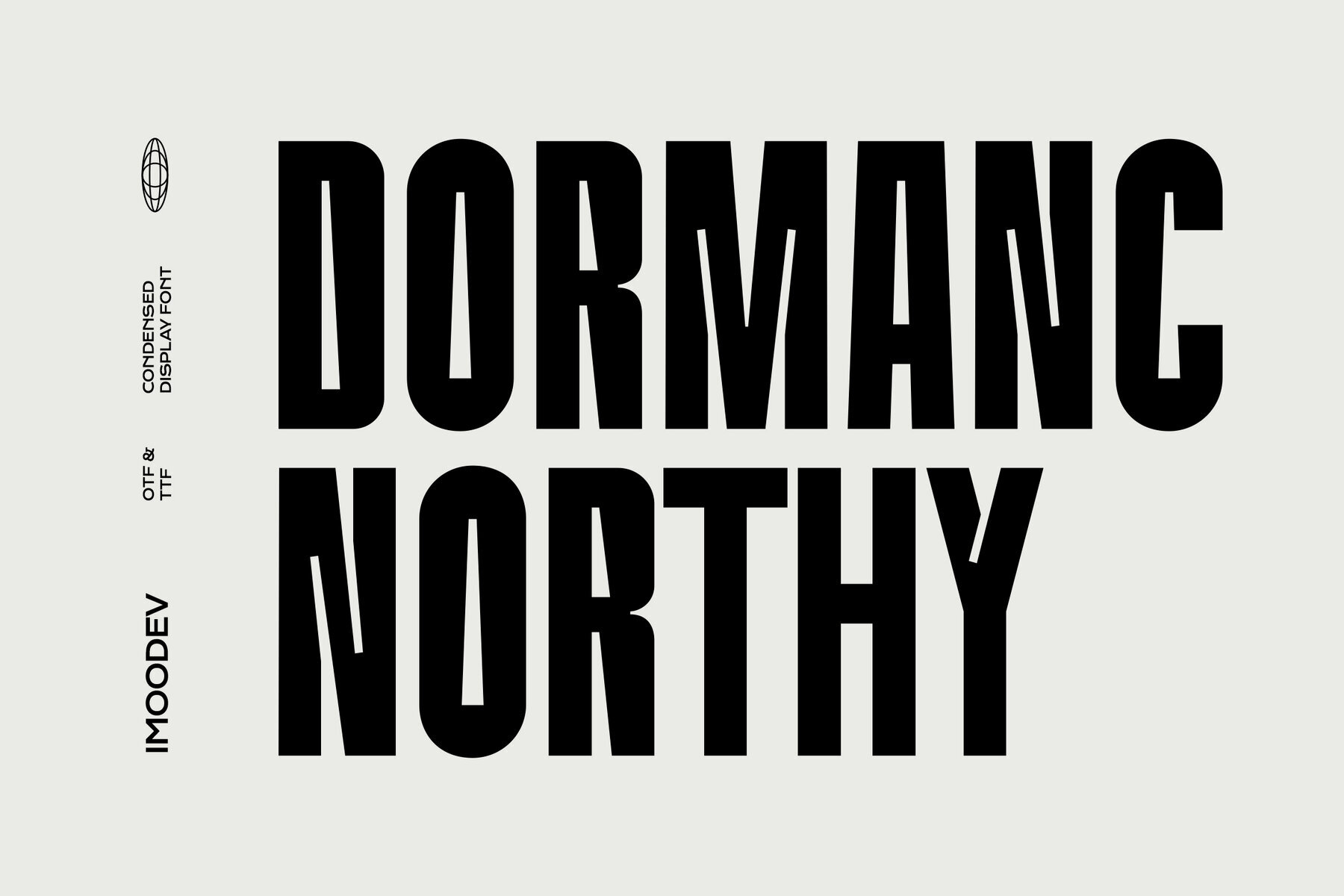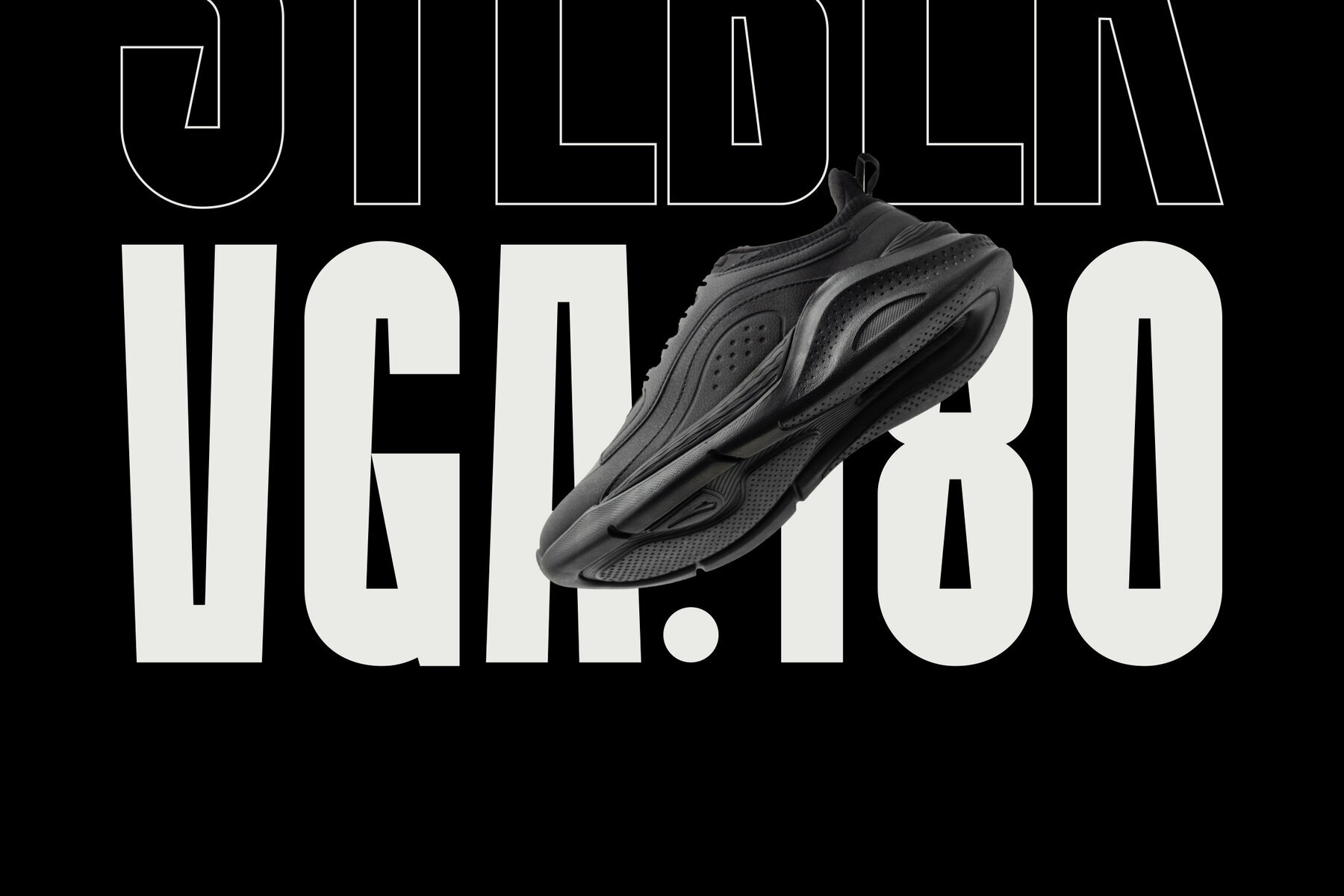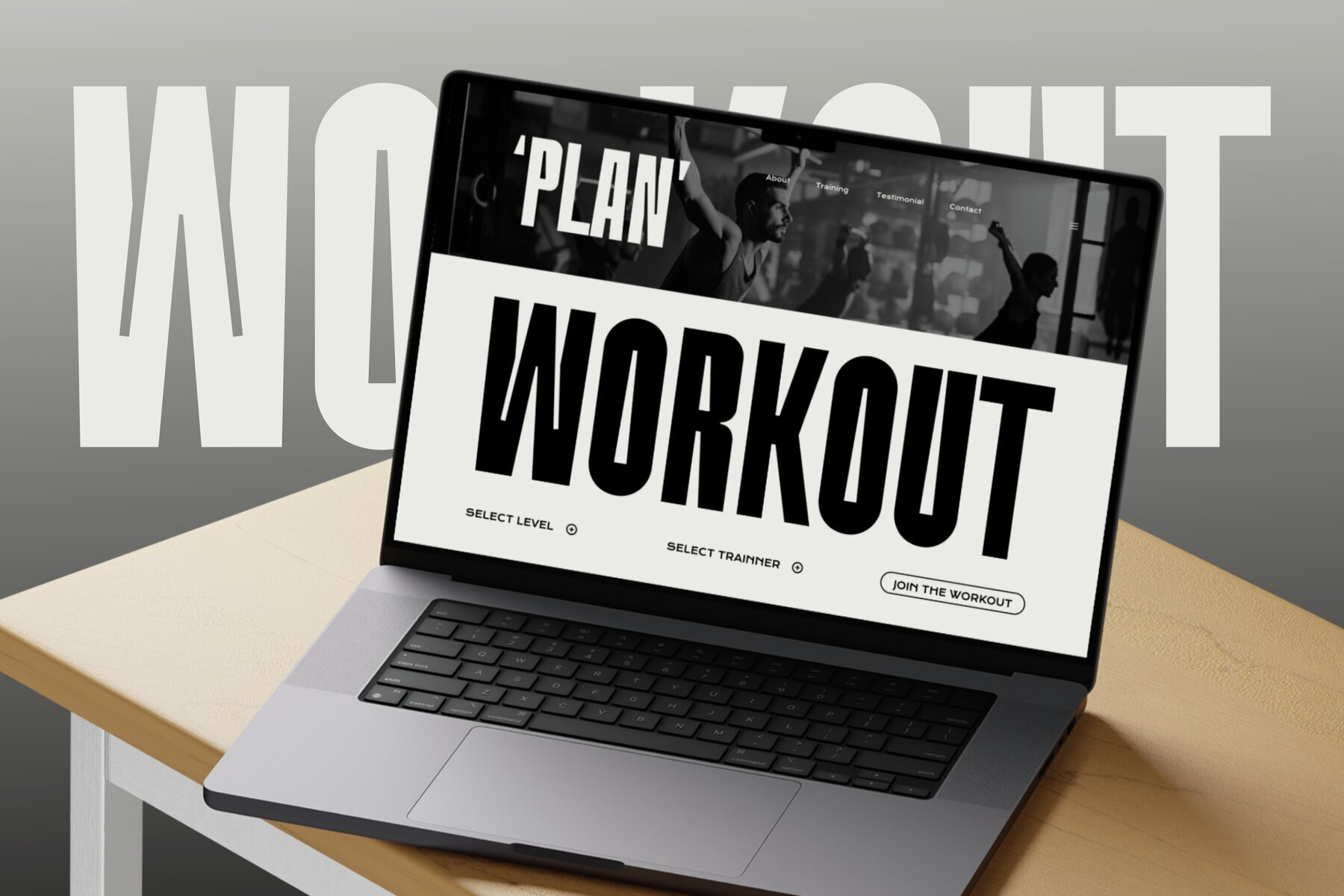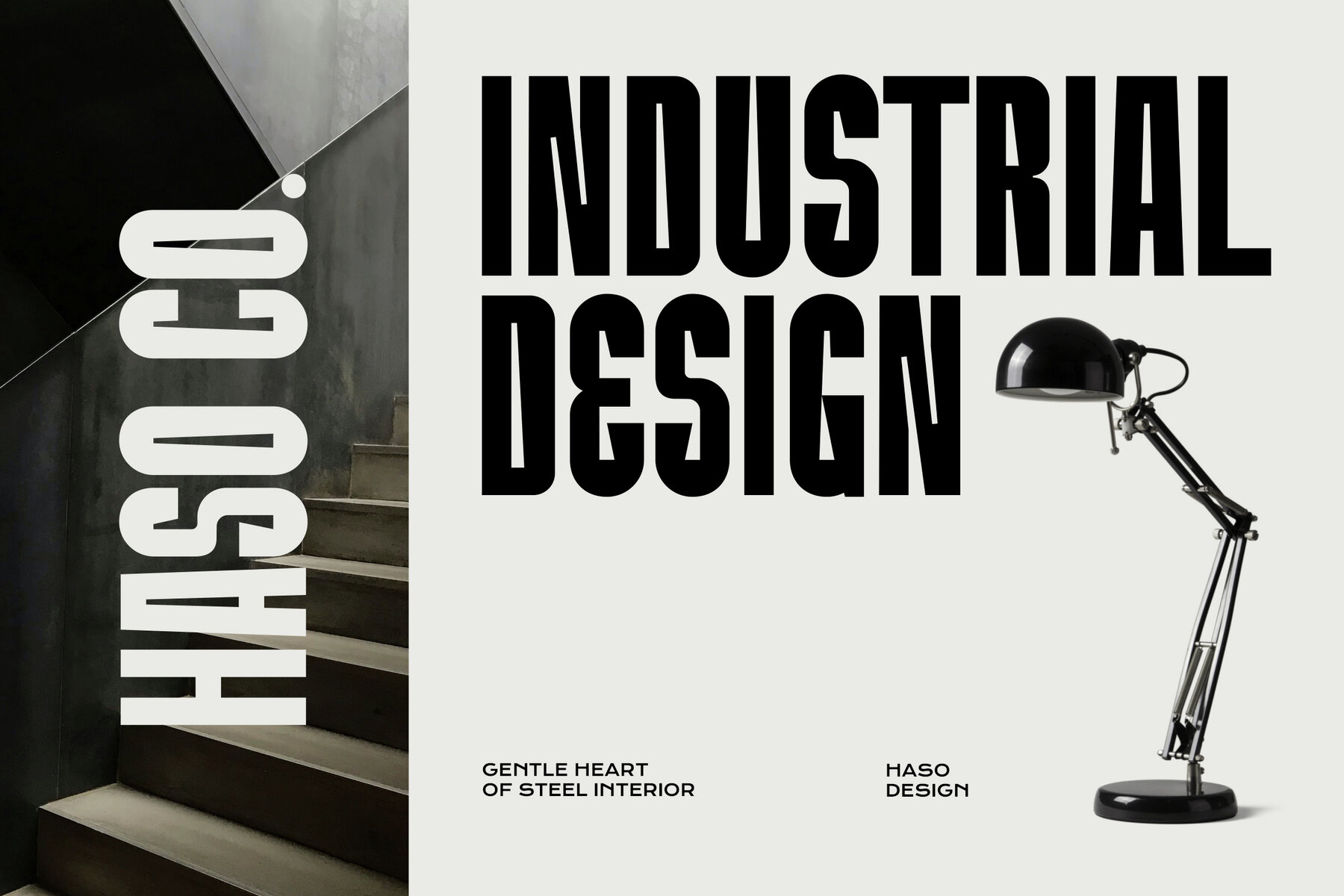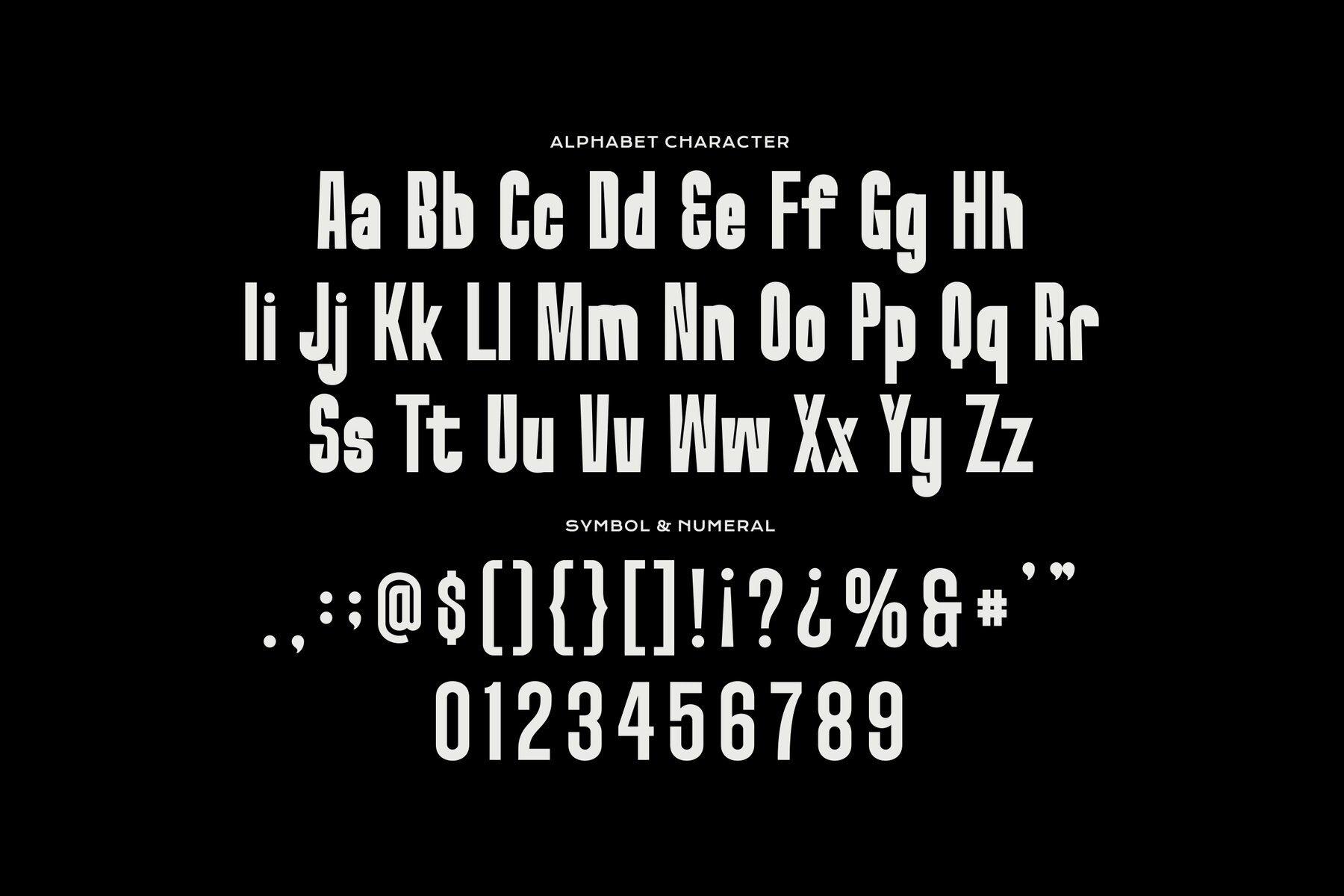
Dormanc Northy Font
Dormanc Northy Regular
Dormanc Northy is a bold, condensed display typeface that demands attention with its modern and impactful design. The blocky letterforms create a strong visual presence, making it perfect for headlines and titles. This typeface's minimalist aesthetic blends seamlessly with contemporary design projects, underscoring its versatility for diverse creative applications. Its robust design is particularly suited for high-impact visuals where modern typography is a priority. This makes Dormanc Northy ideal for titles, headers, fast car racing sports titles, and events like running matches and cycling tournaments. It thrives in automotive design, monograms, posters, jersey designs, and sport slogans, delivering a strong, bold essence. Embrace this typeface to elevate branding in industrial or minimalist design arenas.Dormanc Northy: Bold Condensed Typeface